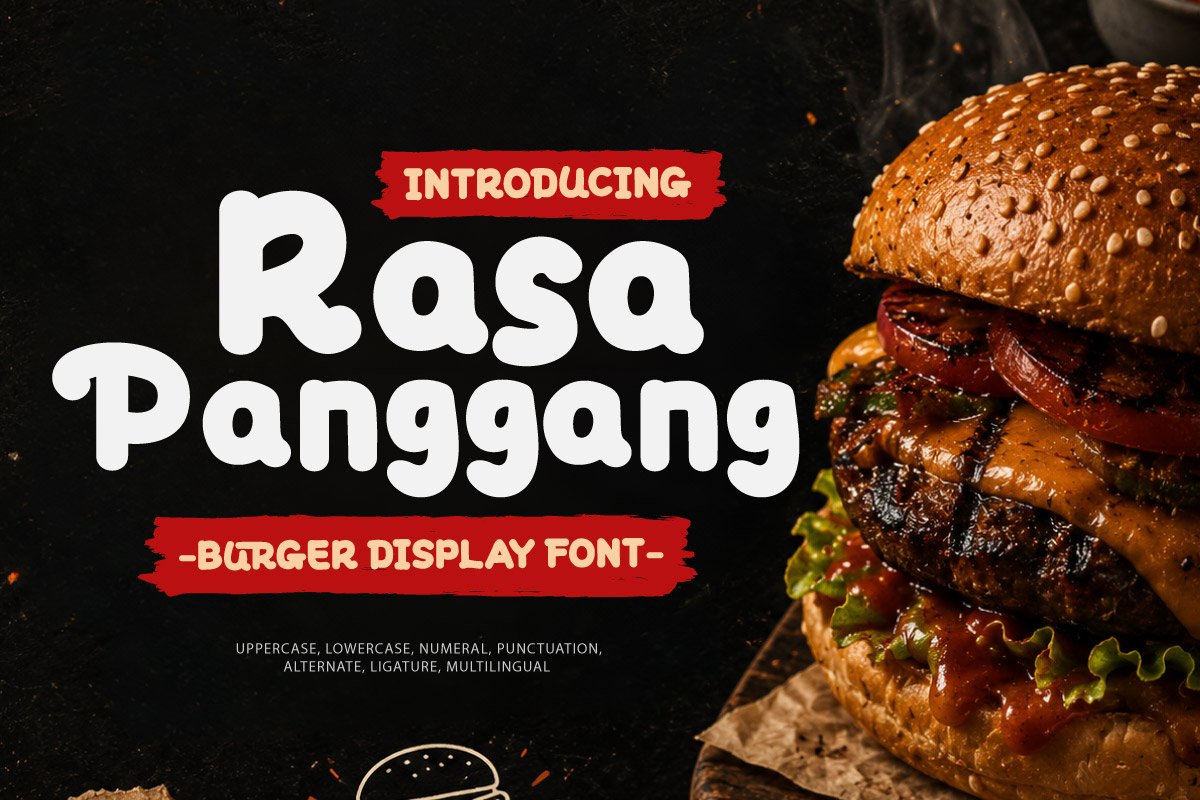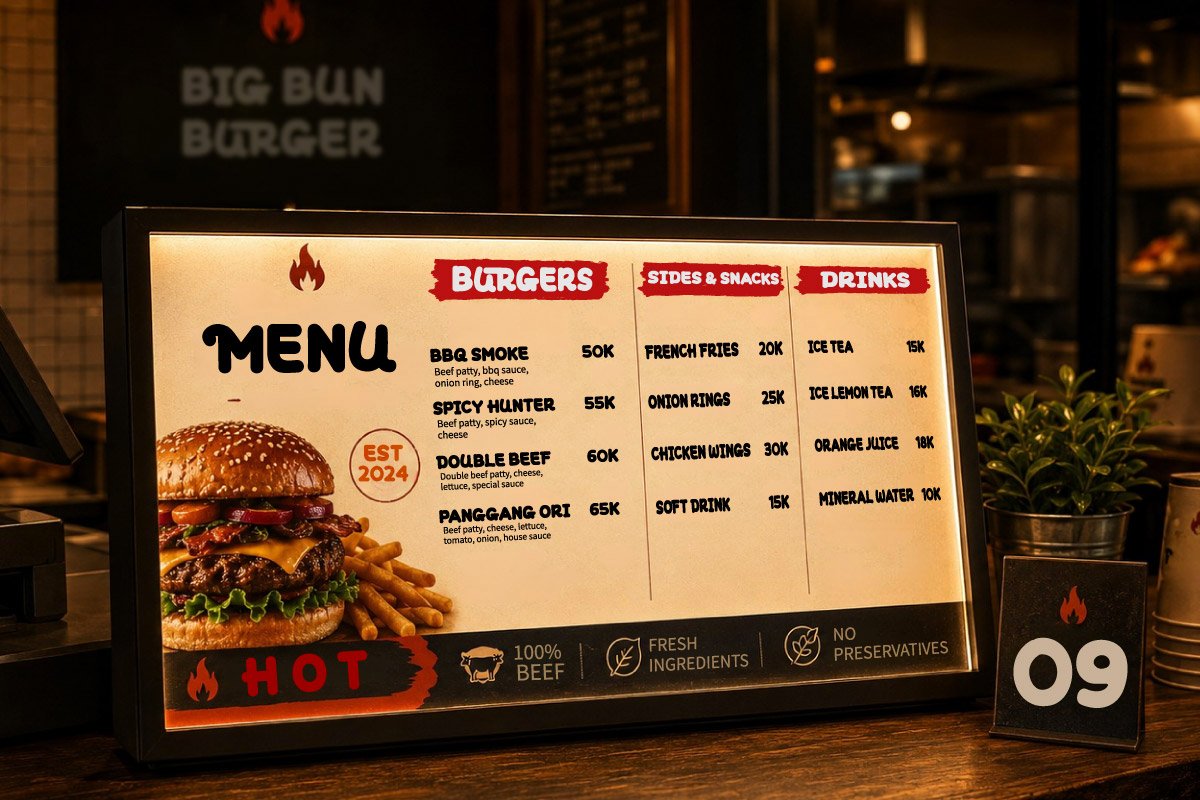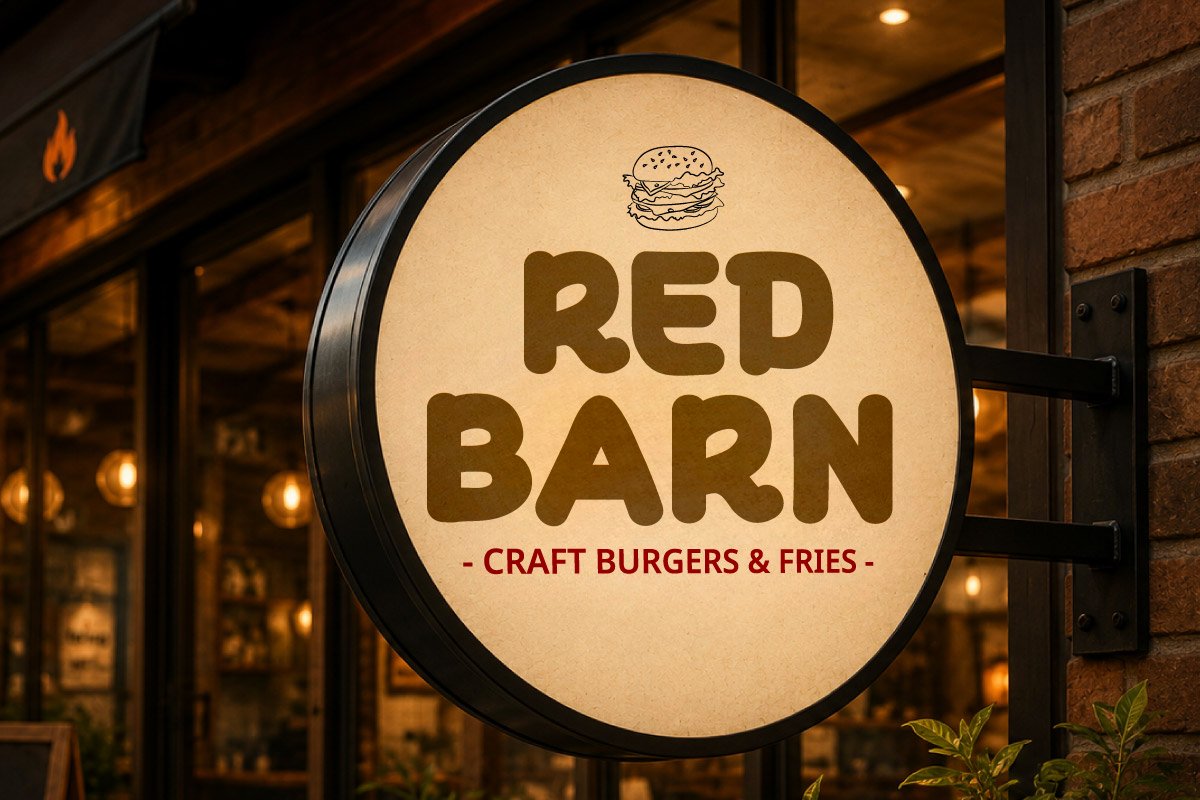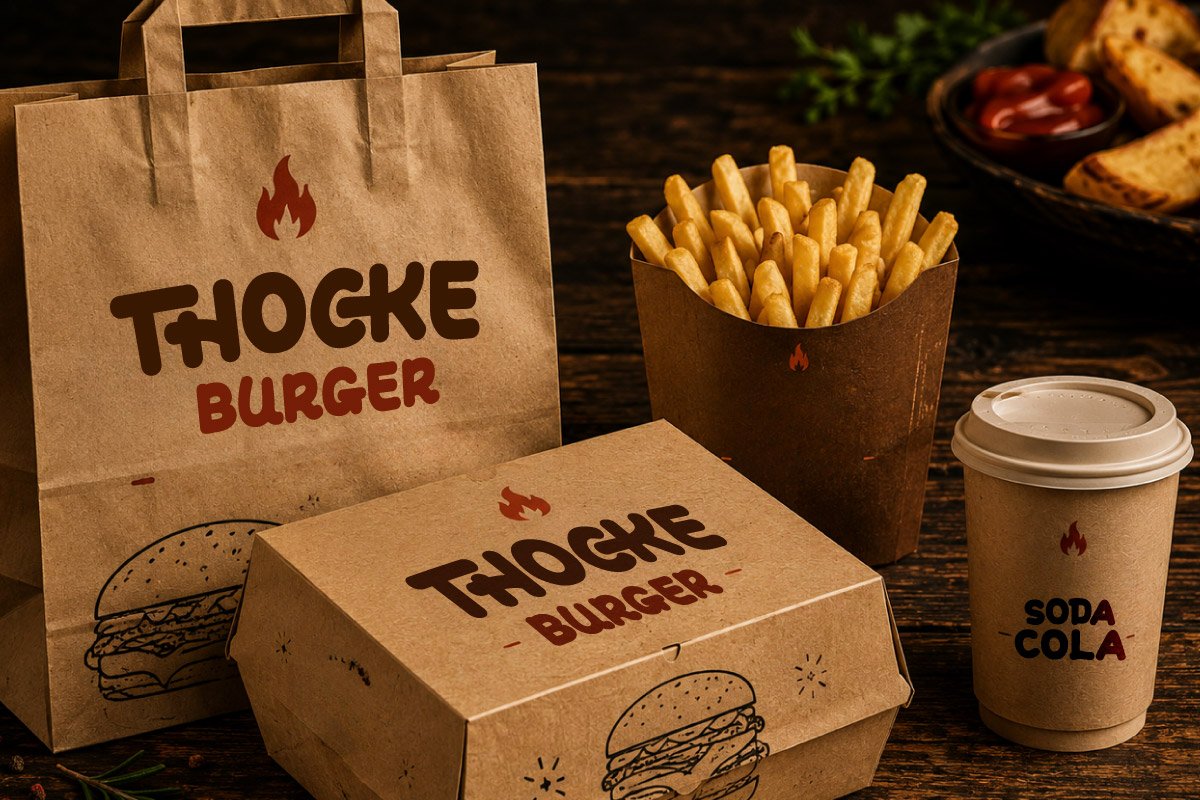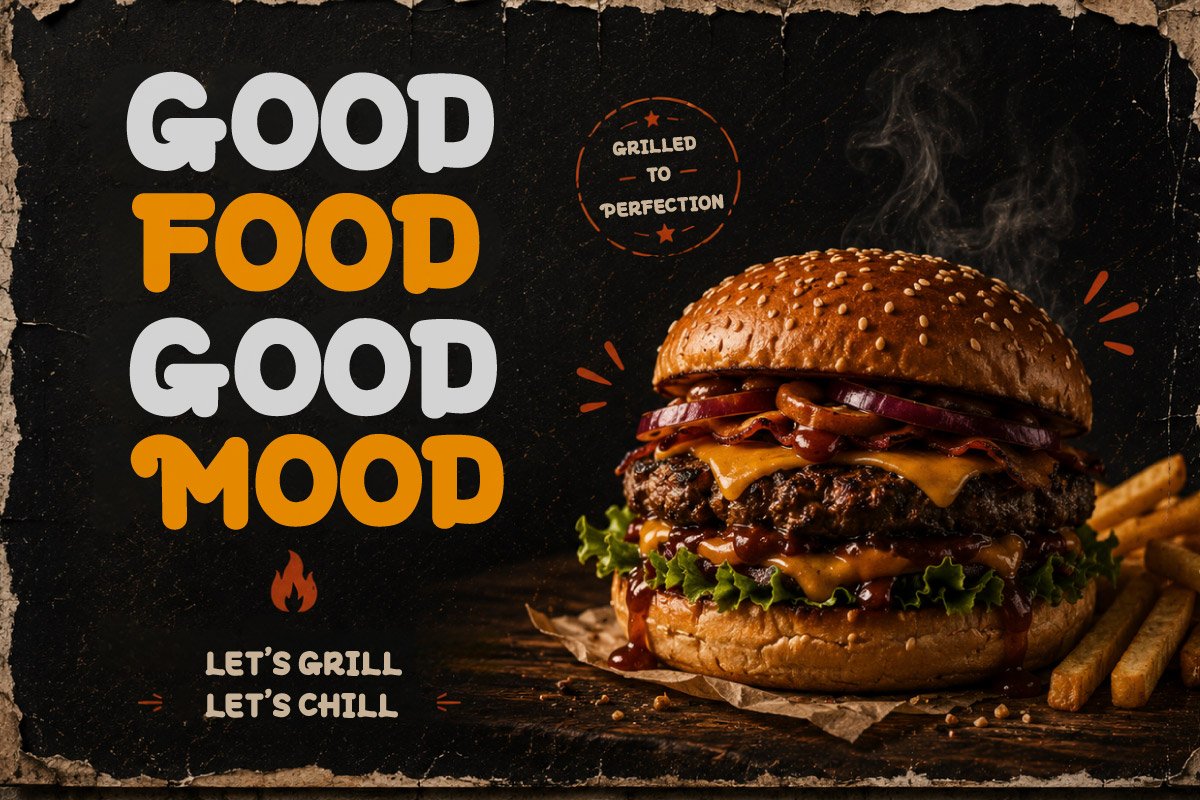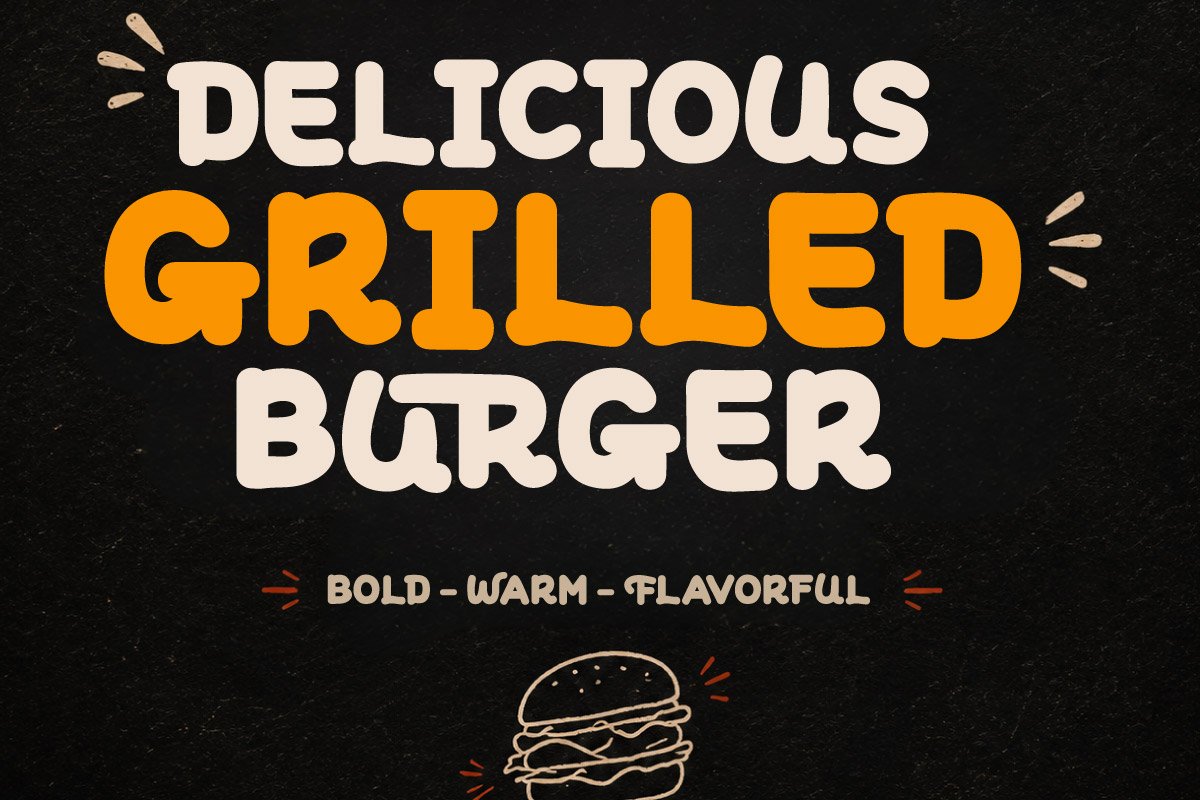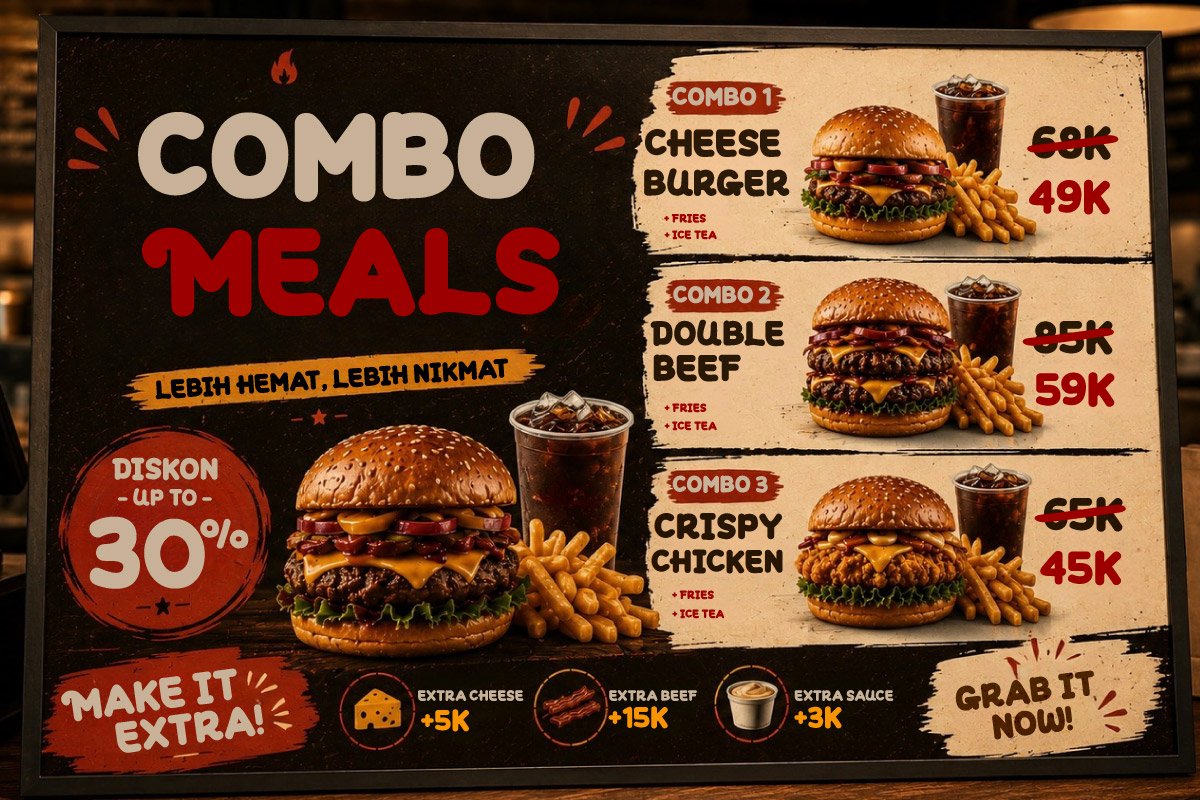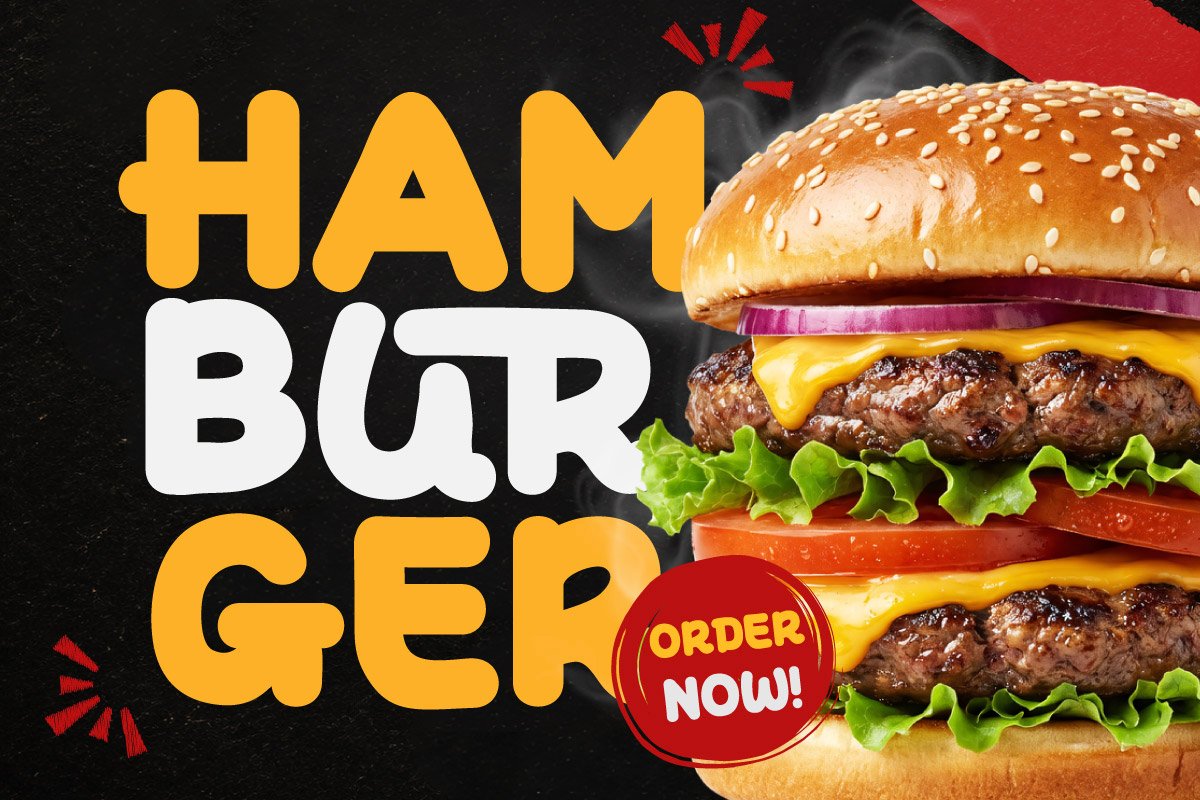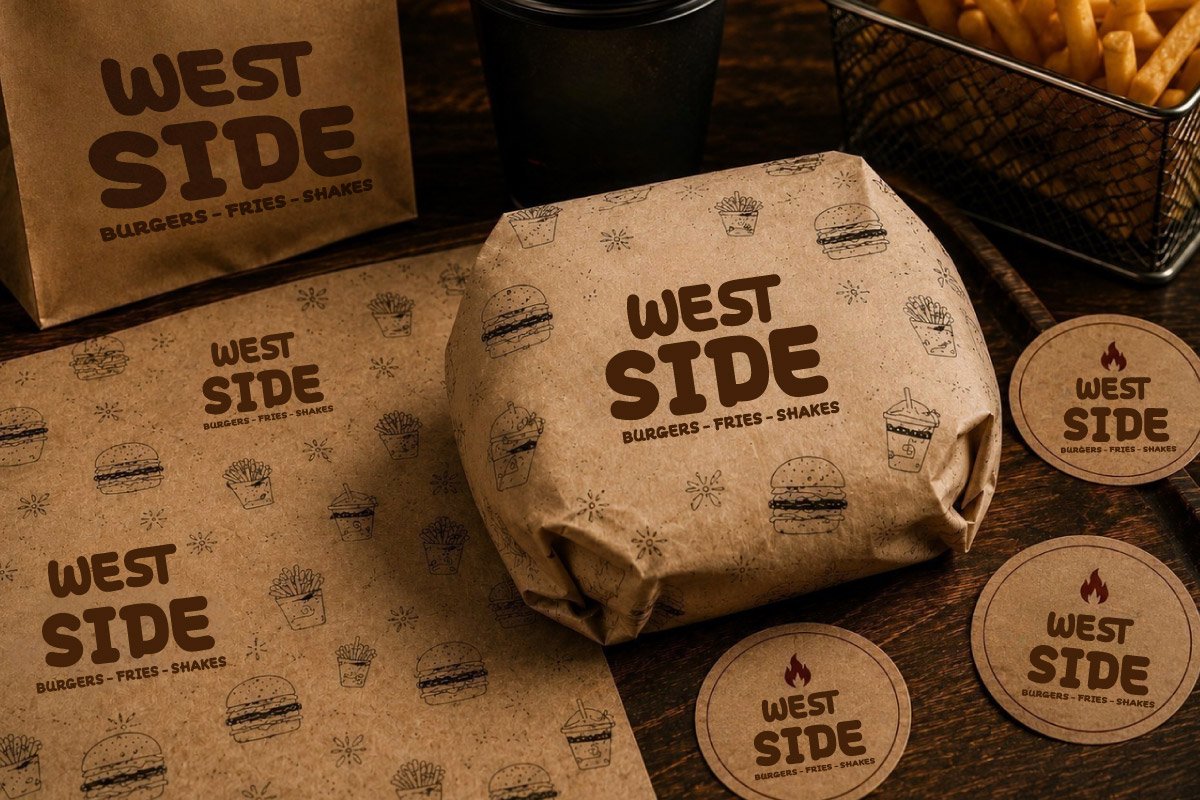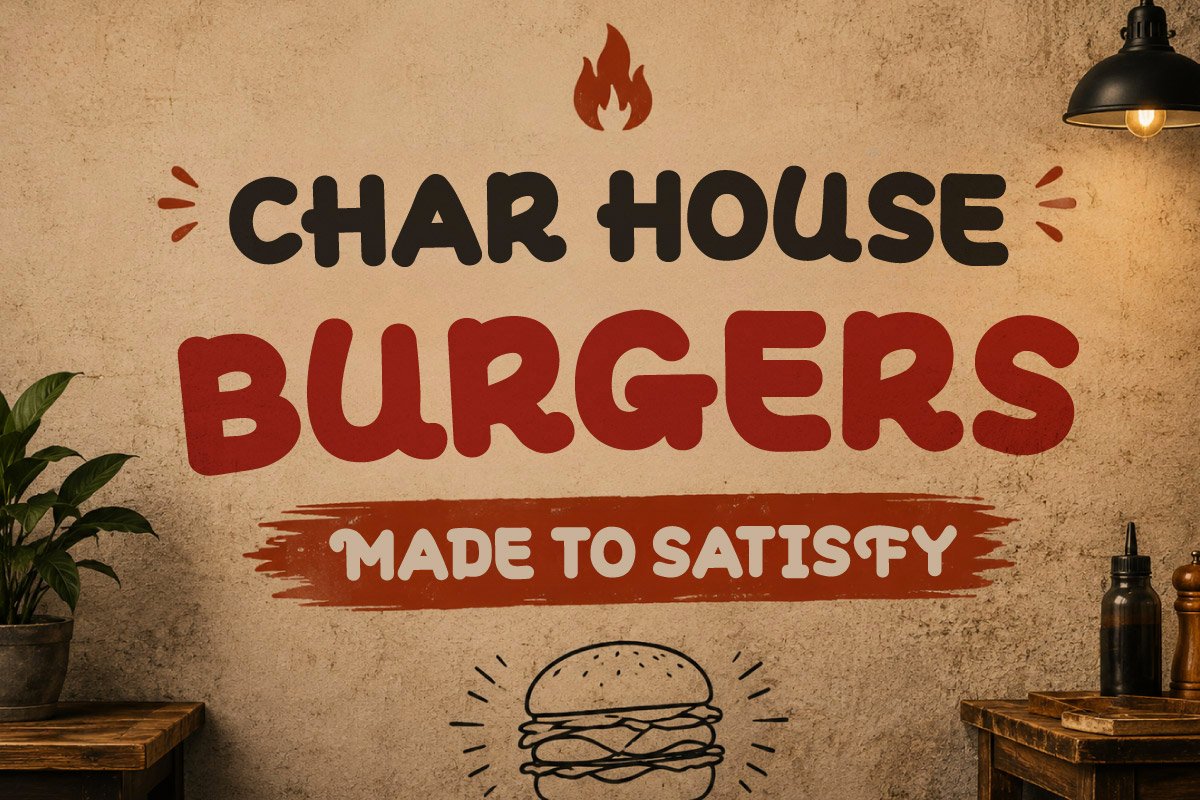
Rasa Panggang – Burger Display Font
Rasa Panggang – Burger Display Font is a bold, playful, and modern display typeface created for food branding, burger restaurants, fast-food businesses, and contemporary culinary design projects. Its thick rounded letterforms deliver a delicious, friendly, and eye-catching personality, making it perfect for headlines, logos, menus, packaging, promotional materials, and digital advertising that instantly grabs customer attention.
This typeface is an excellent choice for burger shops, food trucks, cafes, BBQ restaurants, pizza brands, fried chicken businesses, street food vendors, and modern food & beverage startups. The expressive display style creates a memorable brand identity while maintaining excellent readability across posters, menu boards, websites, social media campaigns, packaging, and commercial advertising.